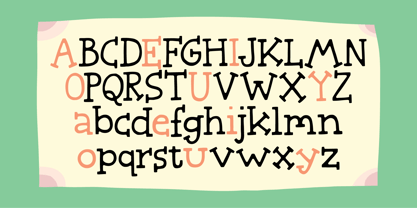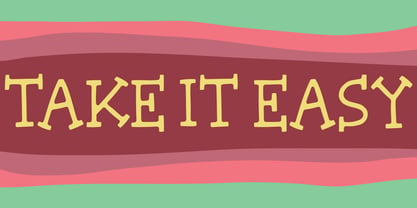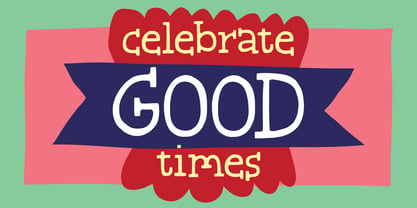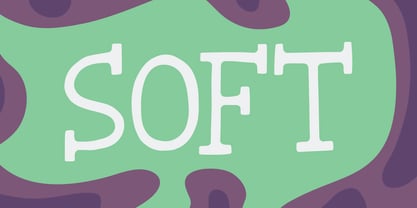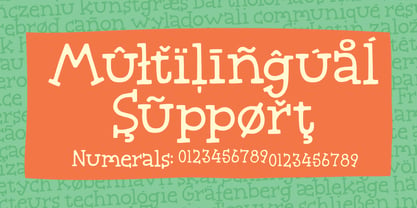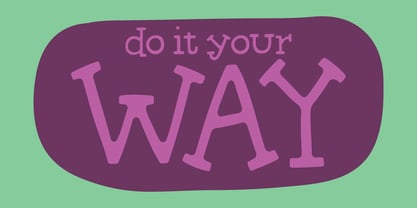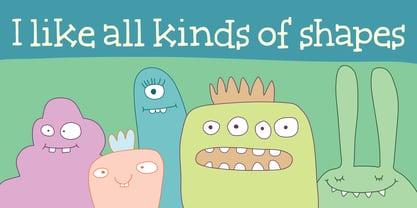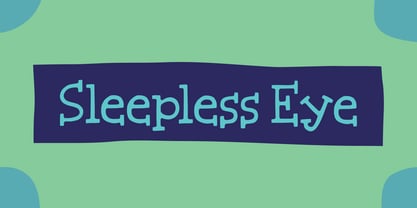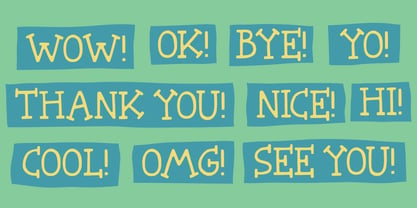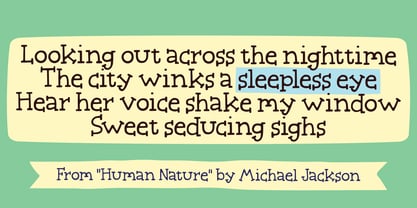
Sleepless Eye
by Bogstav
The Sleepless Eye Font Family was designed by Jakob Fischer and published by Bogstav. Sleepless Eye contains 2 styles and family package options. More about this family
“Sleepless Eye” is not you everyday serif font! It all started with a handmade sketch, and it turned out nice … but something was missing. I tried different options, messing around with the sketches, but nothing really looked nice - not until I blurred it up! The seriffed suddenly appeared nice and soft, and then I knew I had hit the spot! Although it did take a lot of cleaning up the font, it was worth the effort - and the result is this easy going, laid back, cheerful and slightly goofy looking comic seriffed font. Super duper nice for your next project that needs an obvious organic, handmade and party-hardy look! :)
Designers: Jakob Fischer
Foundry: Bogstav